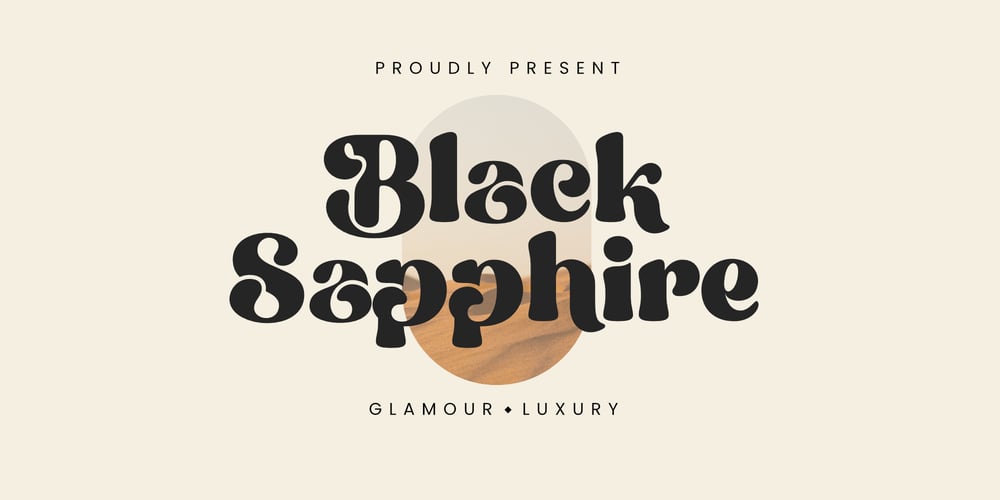
Black Sapphire Font Family was designed by David Kasidi and published by Silverdav. Black Sapphire contains 3 styles and family package options. Black Sapphire font is a modern font with a luxurious retro style, carefully crafted to produce the best product, there are 4 styles that you can use and mix to produce a unique, luxurious, and elegant design.Black Sapphire consists of, Regular, Italic, Outline & Outline italic, combine and create your own design, plus a lot of uppercase and lowercase alternate letters will add to the uniqueness and luxury of the design you create.Black Sapphire is perfect for Branding, Logo, Magazine, T-Shirt, Mockup, Quotes, Poster, and more, try it yourself and create amazing designs with Black Sapphire font.What’s Included: Black Sapphire Italic Black Sapphire Outline Multilingual Support 185 Uppercase & Lowercase Alternates Ligatures If you have any Question Please Contact Us